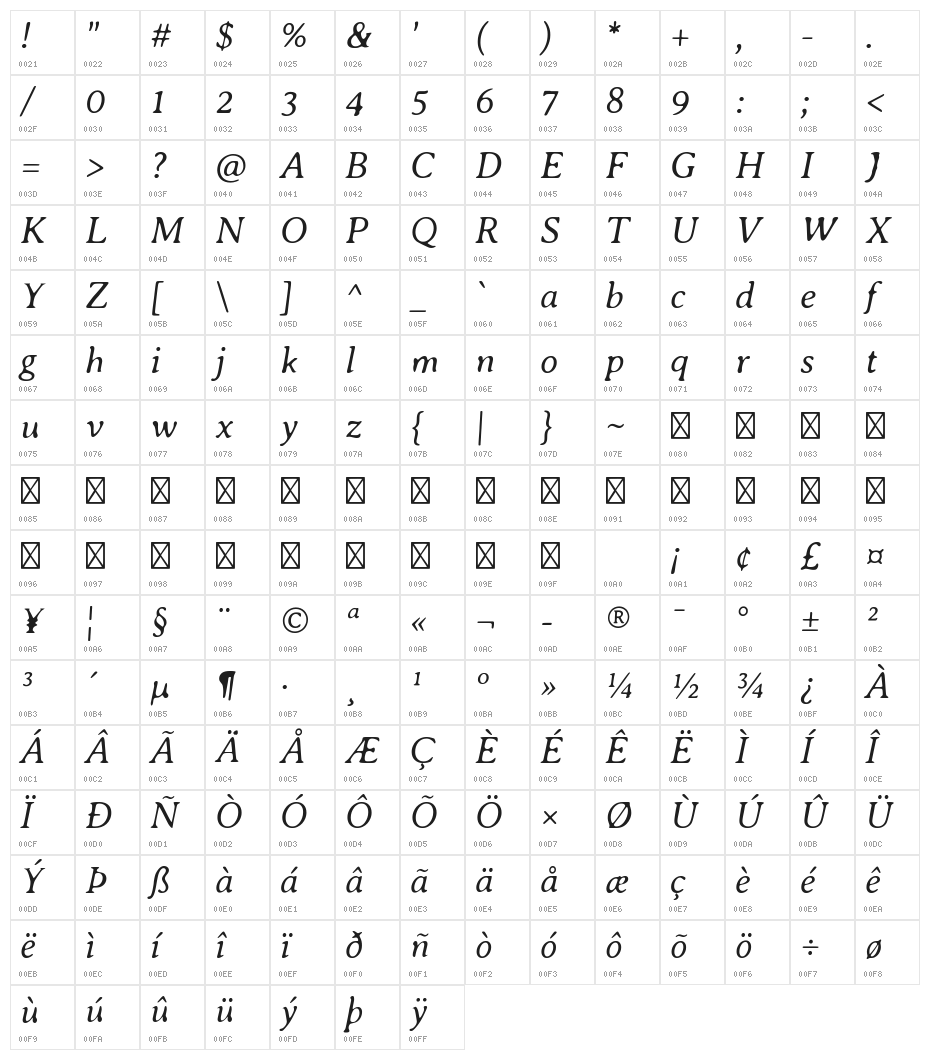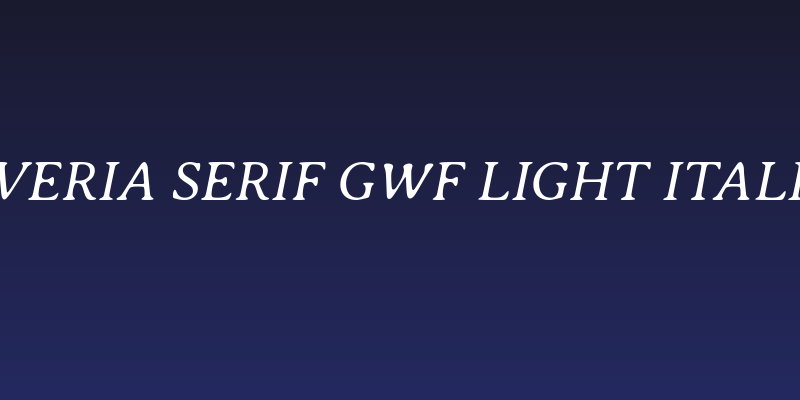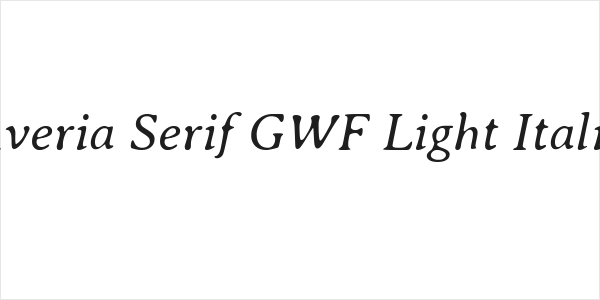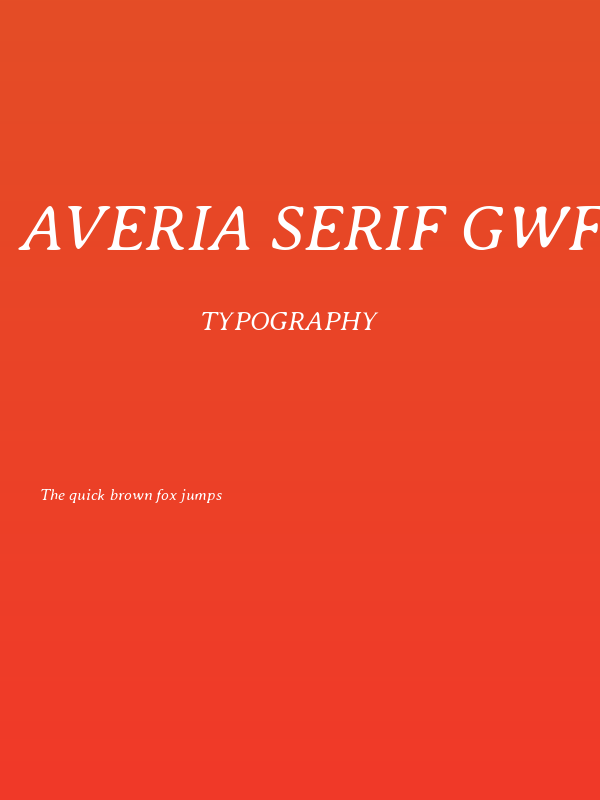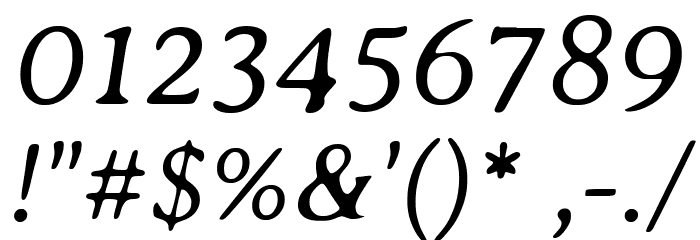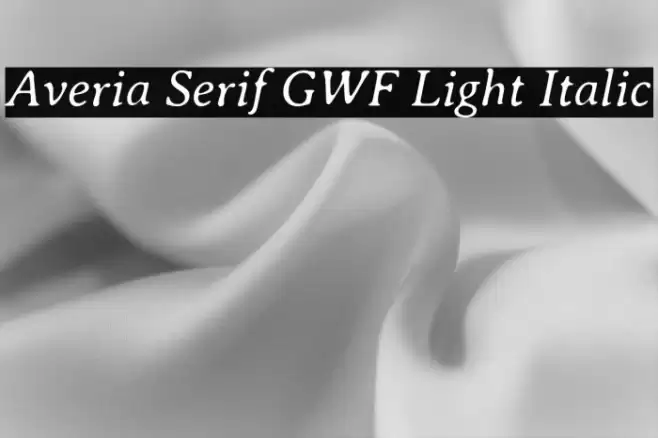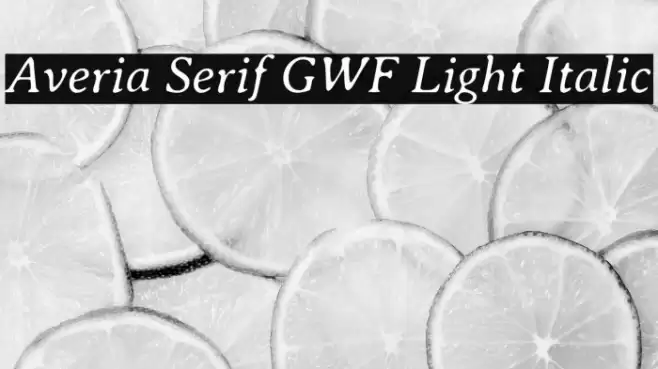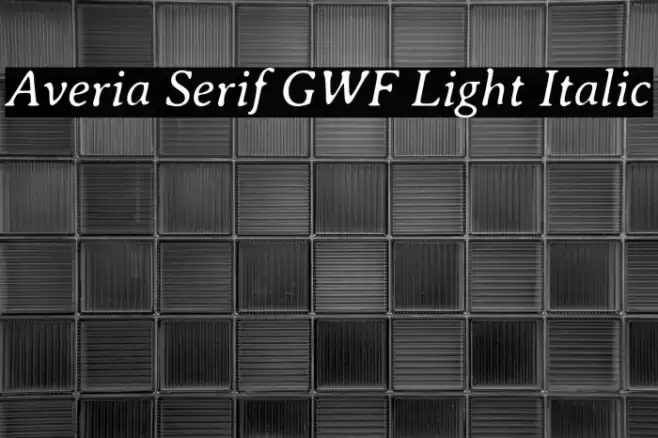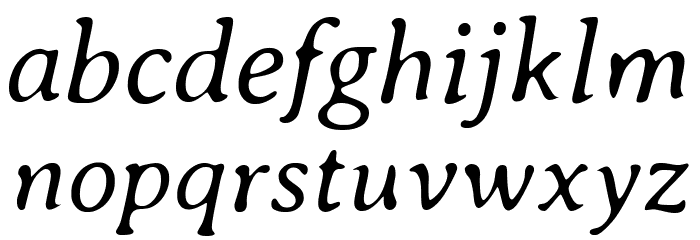
Averia Serif GWF Light Italic Font
Averia Serif GWF Light Italic Description
This font presents a harmonious blend of elegance and readability, characterized by its smooth, flowing italic style. The serif design adds a touch of classic sophistication, making it suitable for a variety of formal and creative applications. The letters are well-proportioned, with a slight slant that enhances the overall aesthetic appeal. The numerals are clear and distinct, ensuring legibility in both print and digital formats. Special characters are thoughtfully designed, maintaining consistency with the overall style. The light weight of the font contributes to its airy and graceful appearance, while the moderate contrast in stroke thickness adds to its visual interest without compromising readability.
| Overall Style | Classic |
| Use Case | Headlines, Body text, Logos |
| Proposed Projects | Ideal for wedding invitations, elegant branding, editorial layouts, and artistic projects requiring a touch of sophistication. |